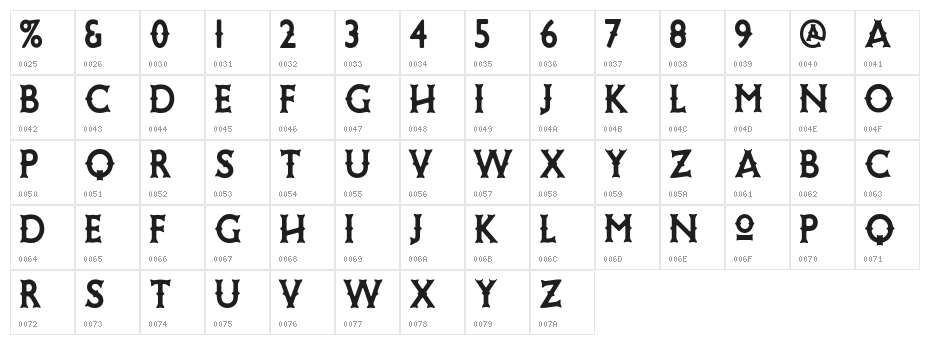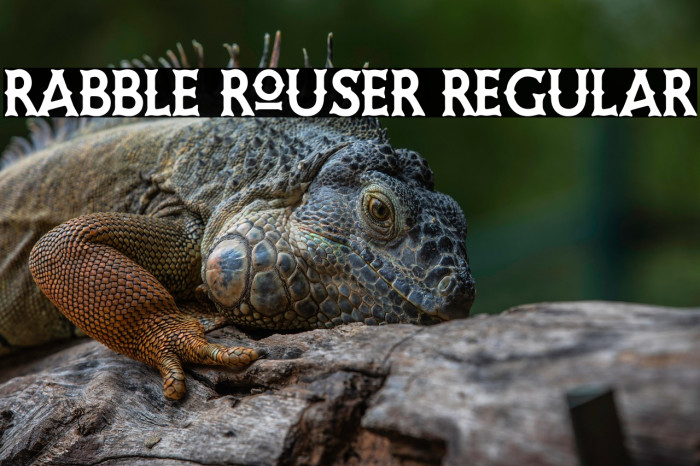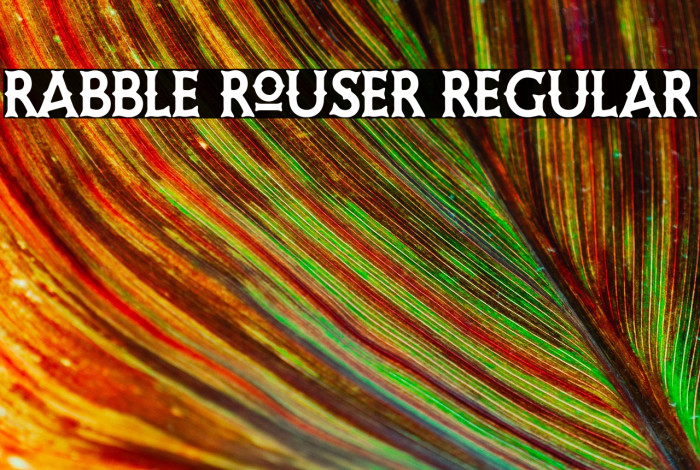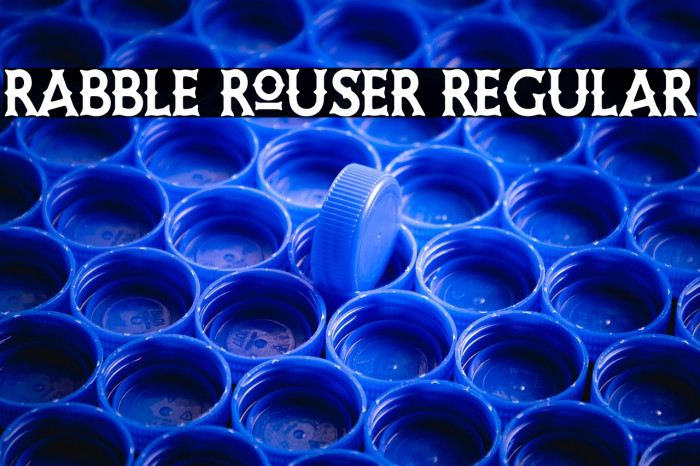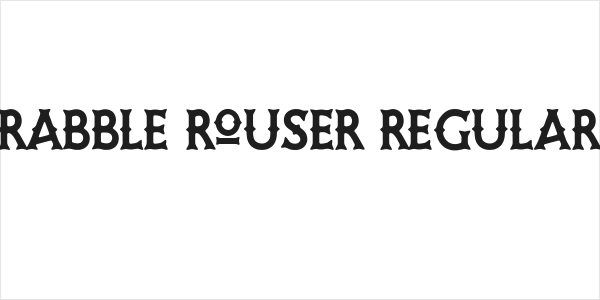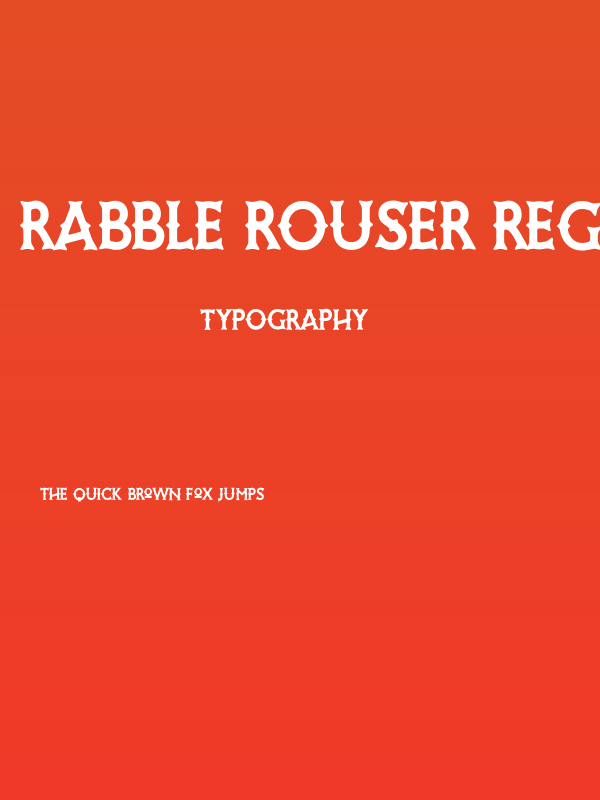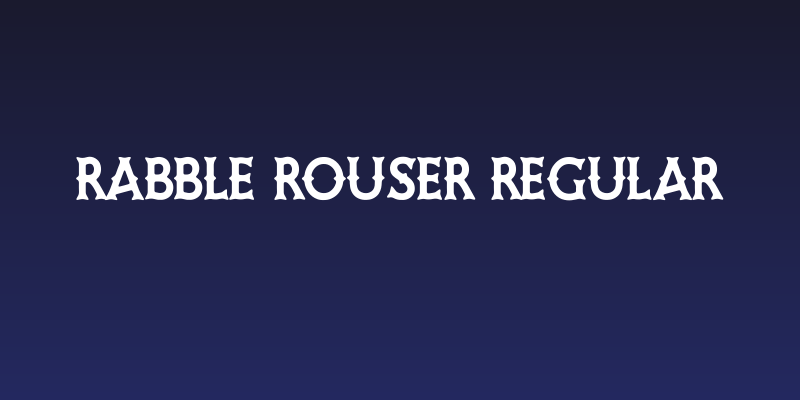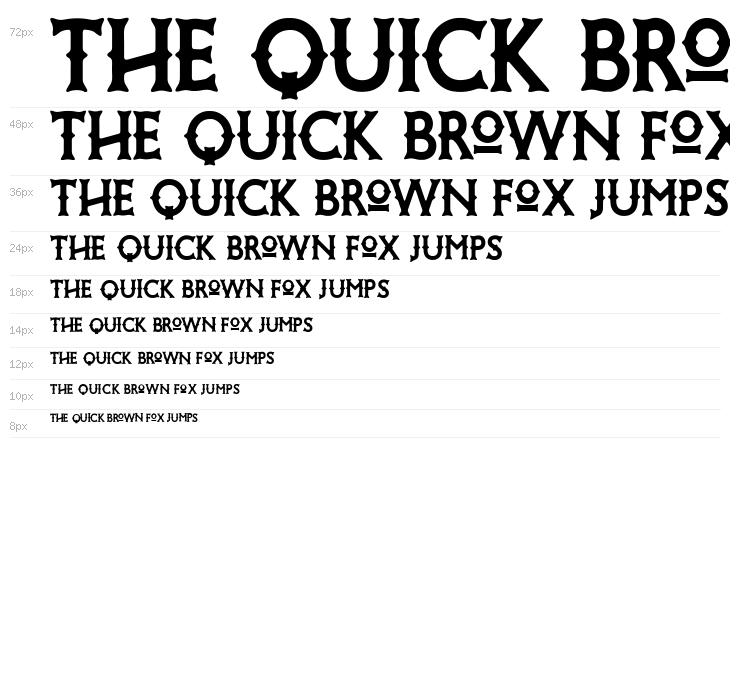
Rabble Rouser Regular Font
Rabble Rouser Regular Description
This font features a bold and striking design with sharp, angular edges and a slightly distressed appearance. The characters have a unique, almost gothic flair, with pointed serifs and a bold presence that commands attention. The uppercase letters are particularly prominent, while the numbers and special characters maintain the same bold style. The overall look is both dramatic and eye-catching, making it suitable for designs that require a strong visual impact.
| Proposed Projects | Ideal for posters, album covers, Halloween-themed designs, and any project needing a dramatic, eye-catching typeface. |